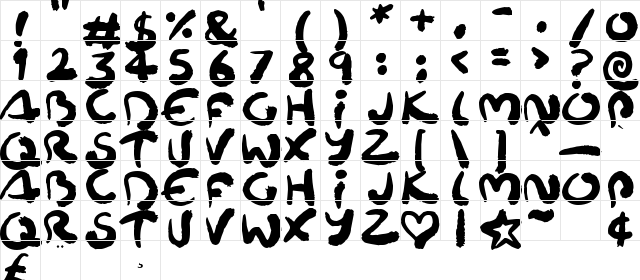
Squiggler Regular
Design Context for Squiggler Typeface
Squiggler is a composed and adaptable typeface that performs quietly and consistently across a wide range of design contexts.